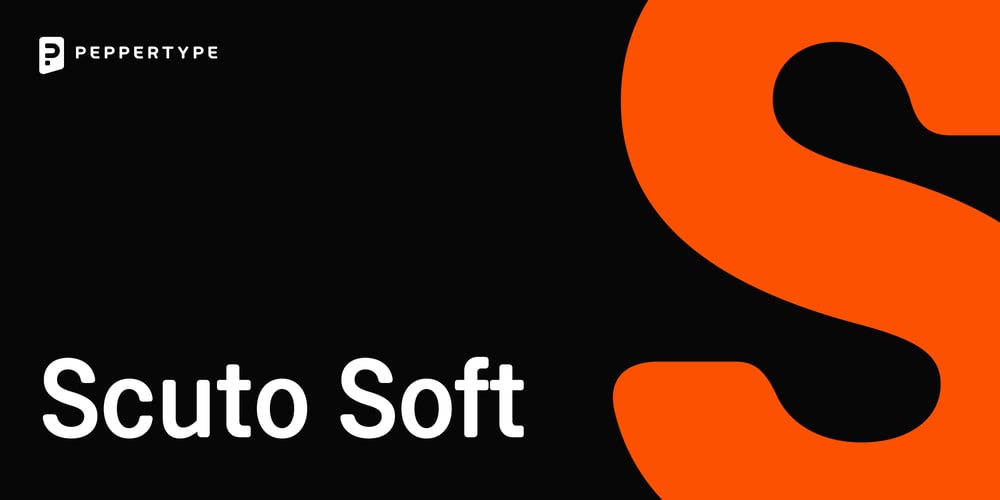
Scuto Soft Font Family was designed by Oleh Lishchuk and published by Pepper Type. Scuto Soft contains 16 styles and family package options. Scuto Soft is the softened counterpart of Scuto Sans, a modern sans-serif typeface ideal for a wide range of applications. Its rounded corners add friendliness and bring display characteristics to an otherwise neutral font family, making it suitable for branding, headlines, callouts, and other types of typographic emphasis.The font includes a comprehensive set of characters, symbols, and diacritics, as well as suport for Cyrillic, making it suitable for multilingual projects. This makes it an excellent choice for global brands and companies that need to communicate with audiences in different languages.